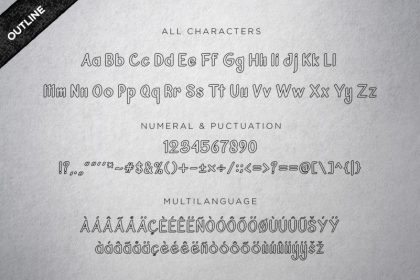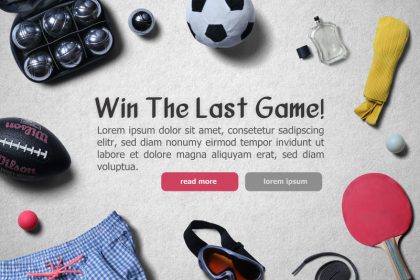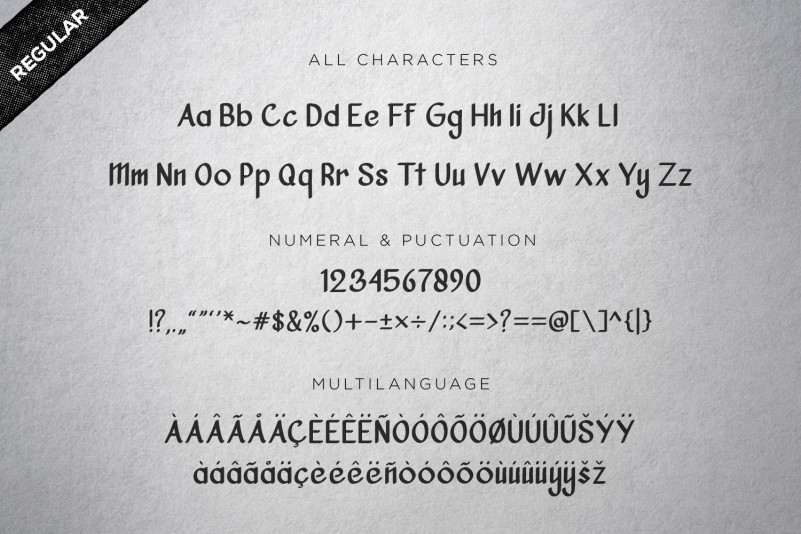
Vanjar Sans Serif Font
Vanjar Sans Serif Font is a multi-purpose sans serif, clean & elegant with a strong contemporary feel. Vanjar allows the font to display well at large or small sizes. Vanjar is very versatile and sophisticated, perfect for headlines, body copy, posters, on-screen and more.